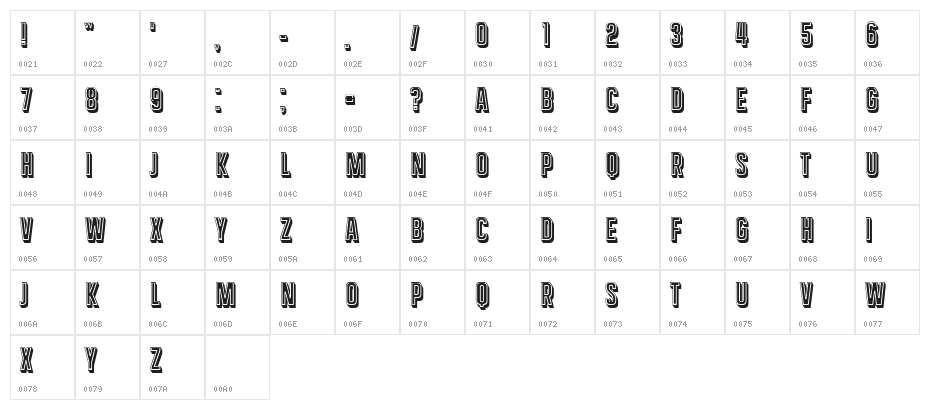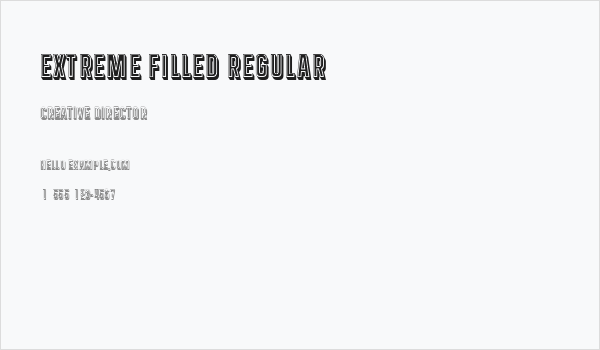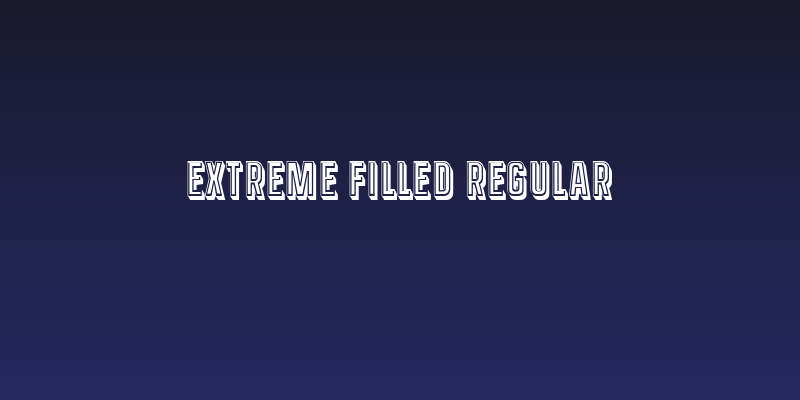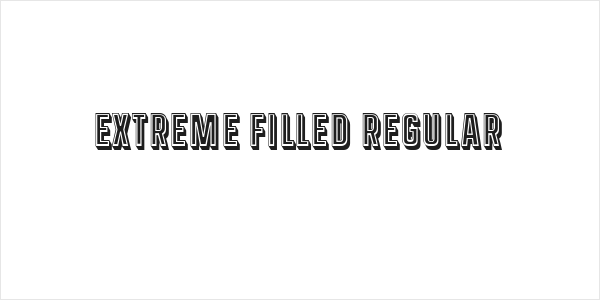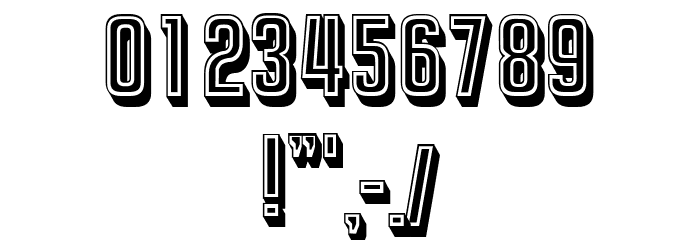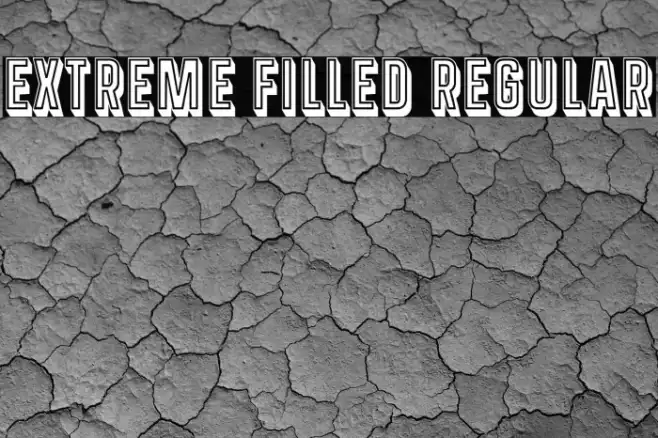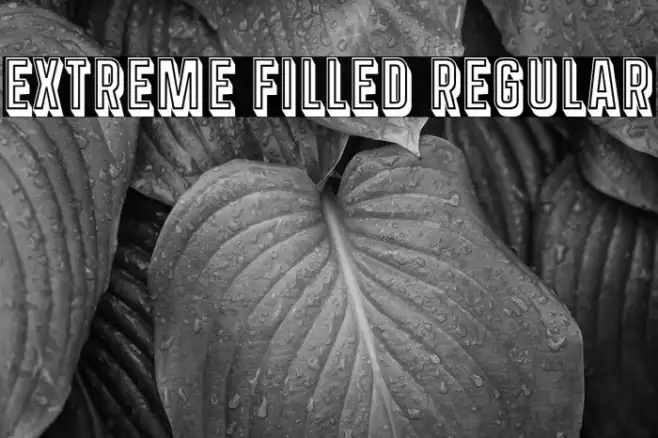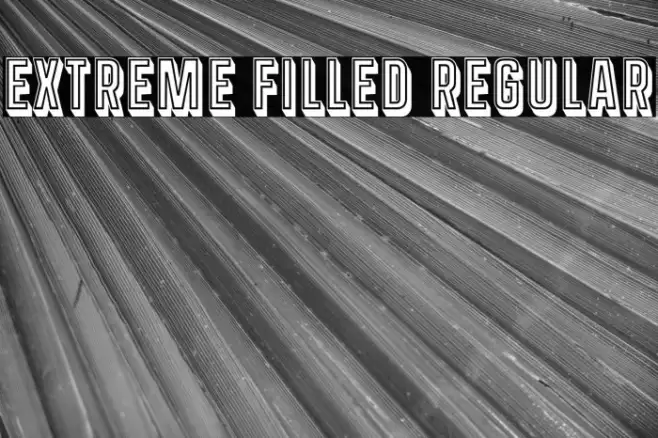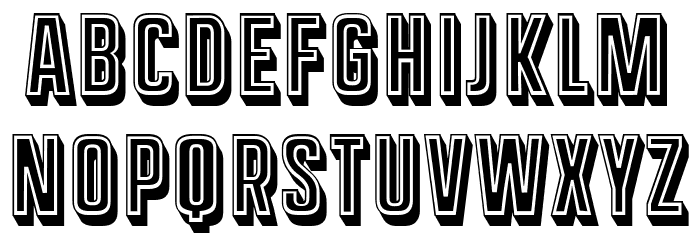
Extreme Filled Regular Font
Extreme Filled Regular Description
This font features a bold, three-dimensional appearance with a strong outline and filled interior, creating a striking visual impact. The uppercase and lowercase letters maintain a consistent style, emphasizing a robust and dynamic look. The numbers and special characters are designed to match the boldness of the letters, ensuring a cohesive appearance across all text elements. The font's design is ideal for making a statement, with its thick strokes and shadow effect adding depth and dimension. Its overall style is both modern and decorative, making it suitable for eye-catching designs.
| Proposed Projects | Ideal for posters, headlines, logos, and any project requiring a bold, attention-grabbing font. |